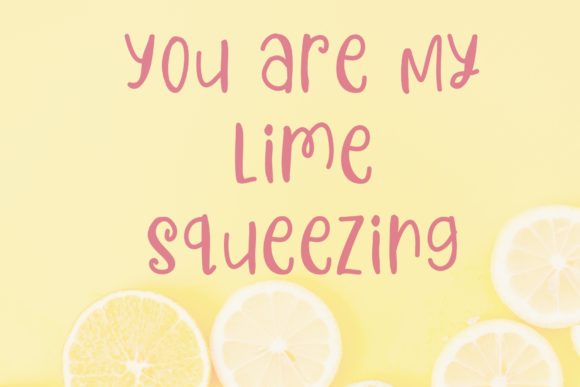
About Squash Lemon Font
Squash Lemon is a fun and friendly handwritten font. Its casual charm makes it appear wonderfully down-to-earth, readable and, ultimately, incredibly versatile. Squash Lemon will look outstanding in any context, whether it’s being used on busy backgrounds or as a standalone headline!